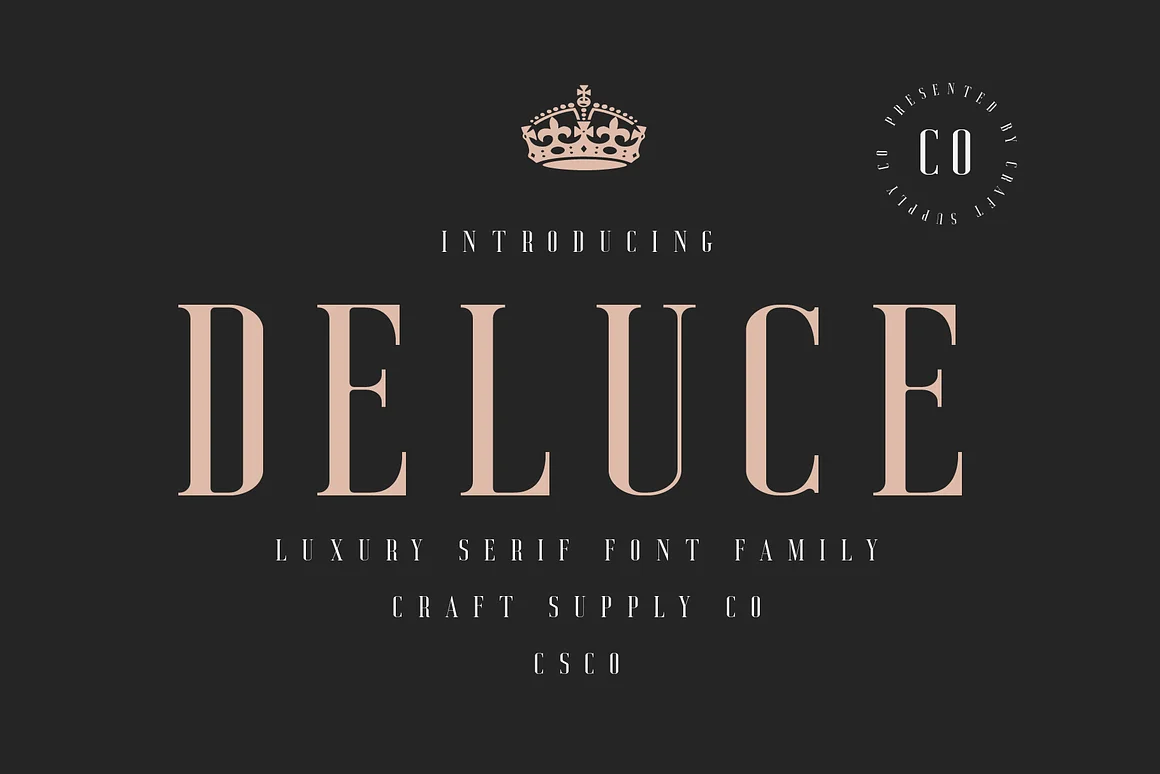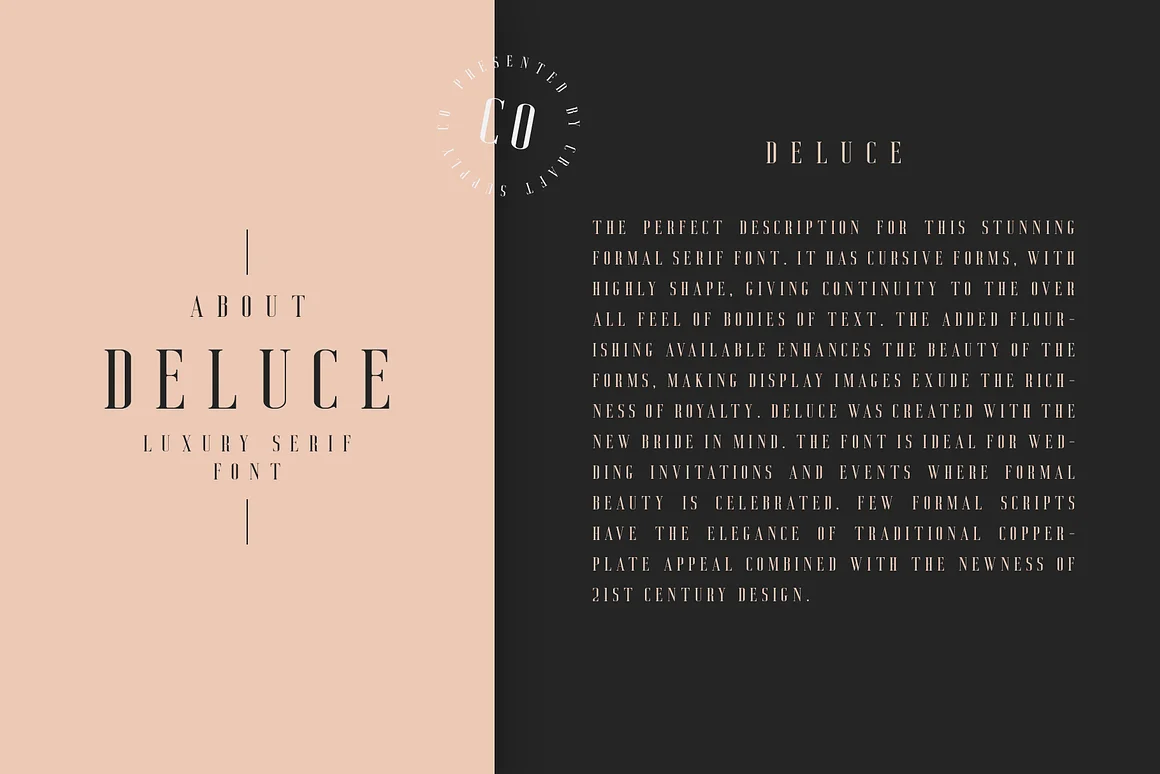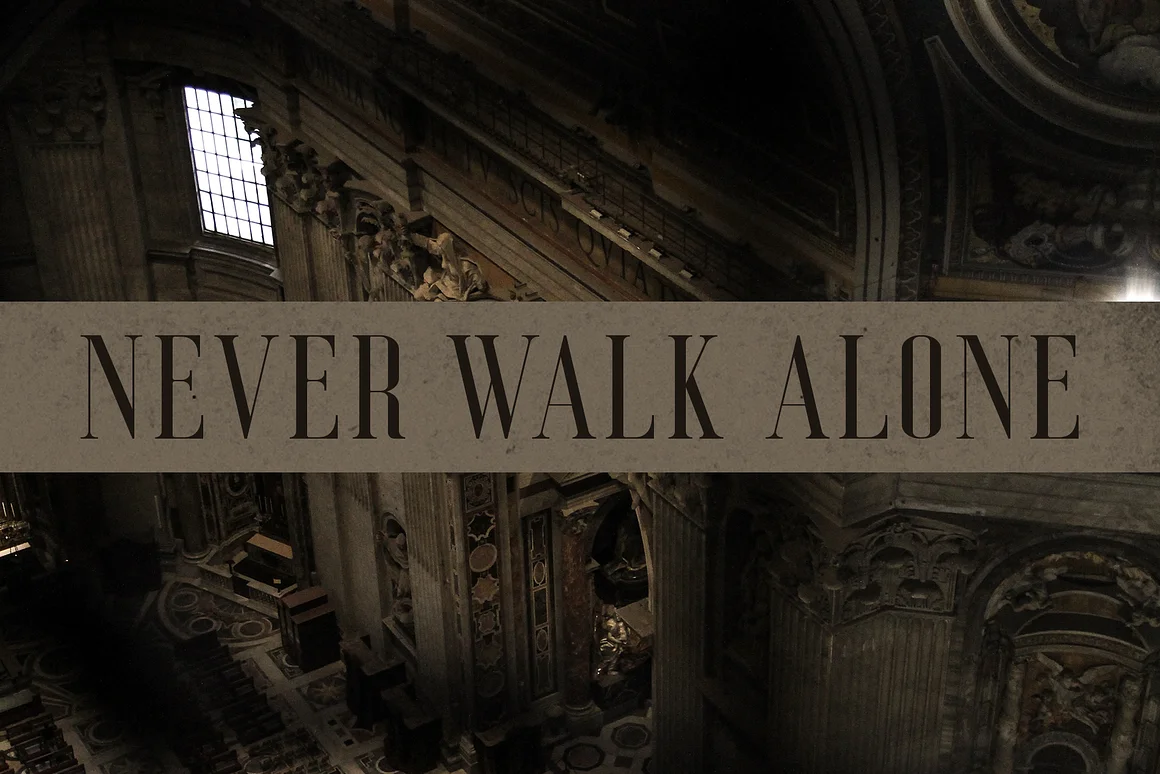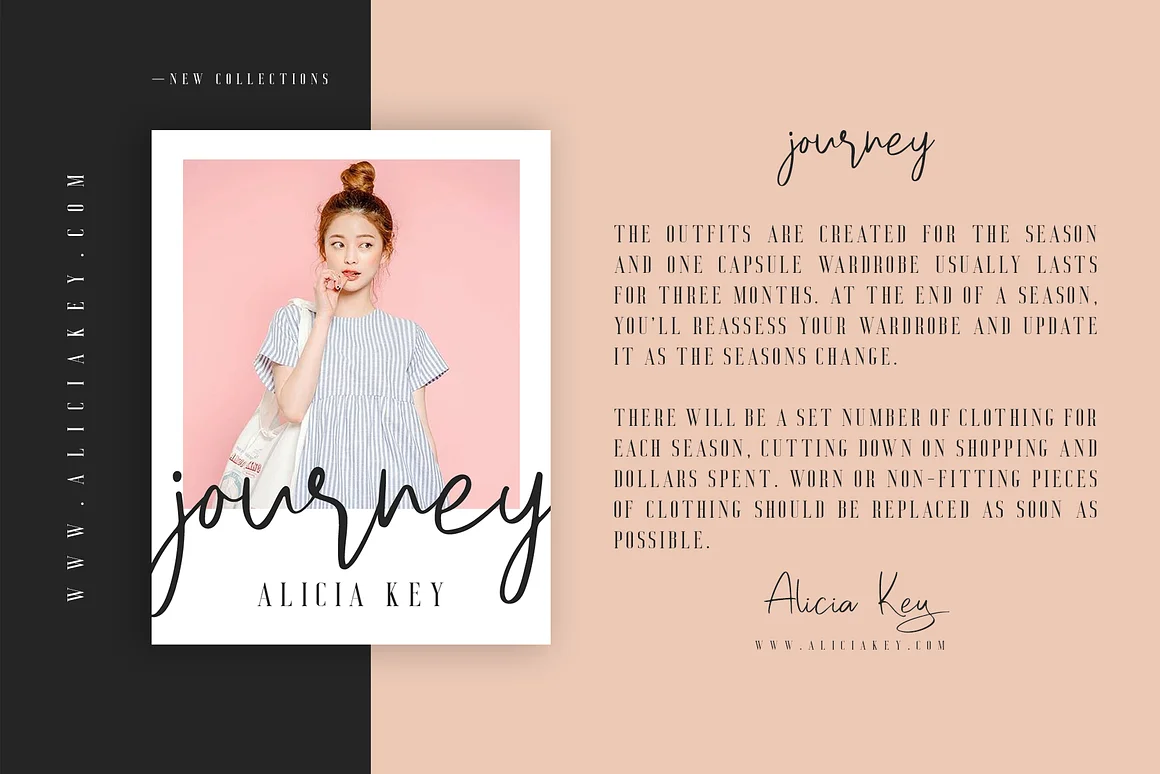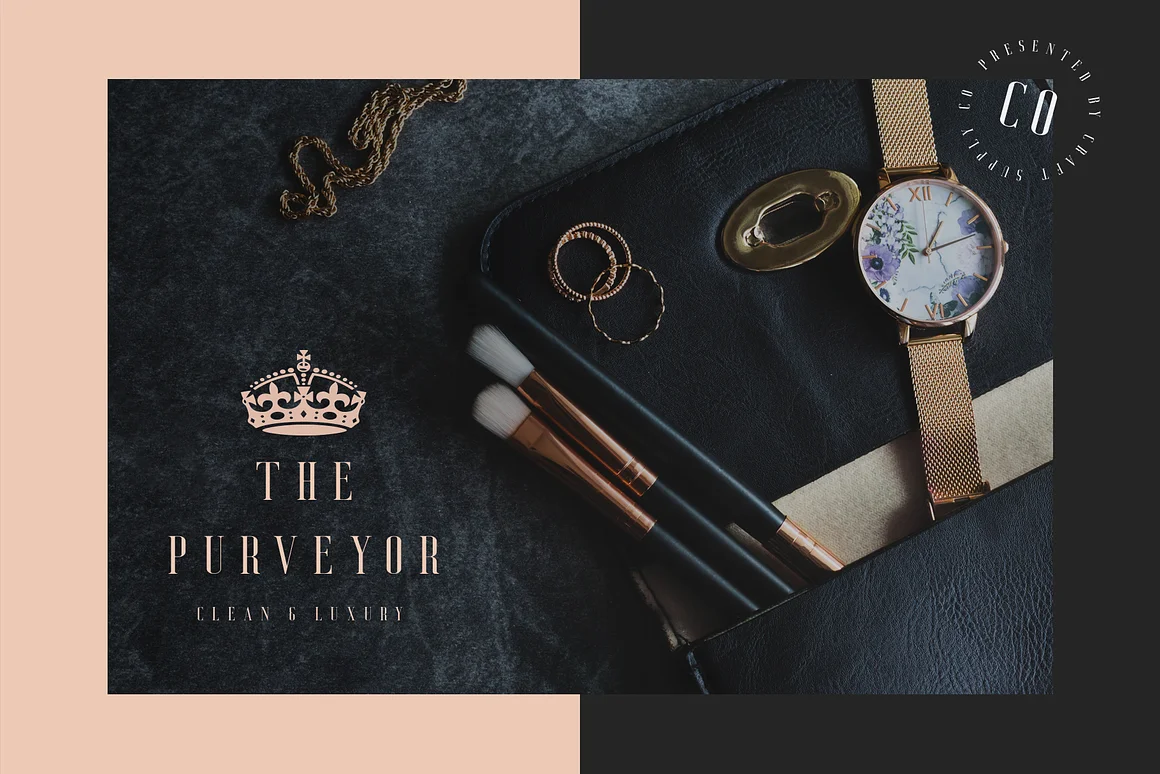
Deluce - Luxury Serif Font
There is a particular satisfaction in finding a typeface that delivers refined proportions and careful stroke modulation without compromise. Deluce - Luxury Serif consistently provides it. The typeface brings a classically grounded sensibility to a broad range of creative disciplines, with versatility across print and screen contexts that holds up whether the work is print-first or screen-first.
In practice, Deluce - Luxury Serif proves particularly effective for poster creation, annual reports, magazine layouts, product labels, corporate identity. Designers reaching for it find that the type decisions feel resolved rather than laboured — a useful quality when client timelines are tight.
The serif terminals are cut at a slight angle, referencing the calligraphic origins of Latin type while maintaining the crispness demanded by modern print reproduction. Optical sizing adjustments ensure the face performs equally at 8pt body copy and 96pt headlines.
The range of applications extends to web design, signage systems, academic titles, environmental graphics. That breadth is deliberate: the proportions and spacing were stress-tested across a wide range of mock briefs before the typeface was finalised.
Freelance designers across print and digital disciplines find Deluce - Luxury Serif a reliable choice for projects that demand both personality and restraint. The design avoids the self-conscious quirkiness that dates quickly, settling instead for considered distinctiveness that holds up over time.